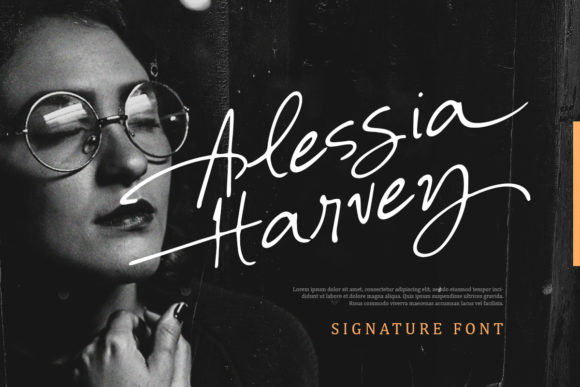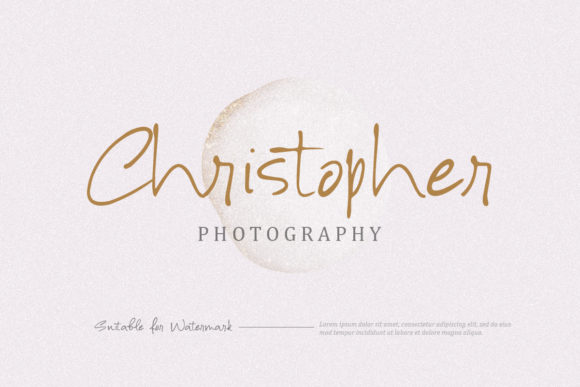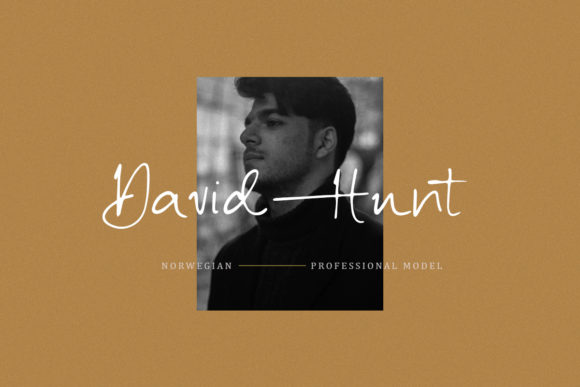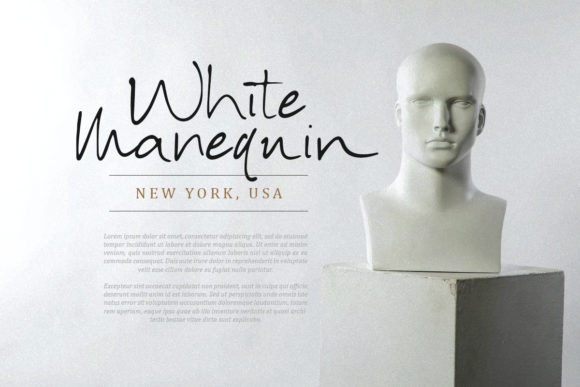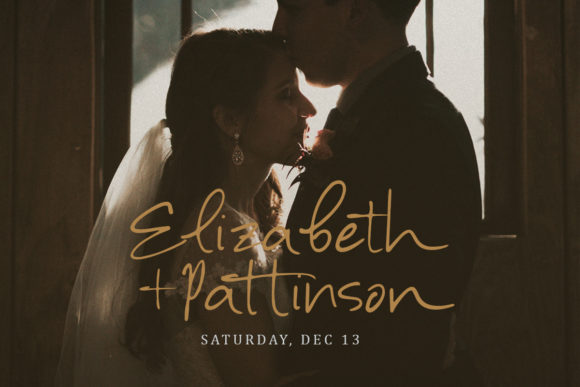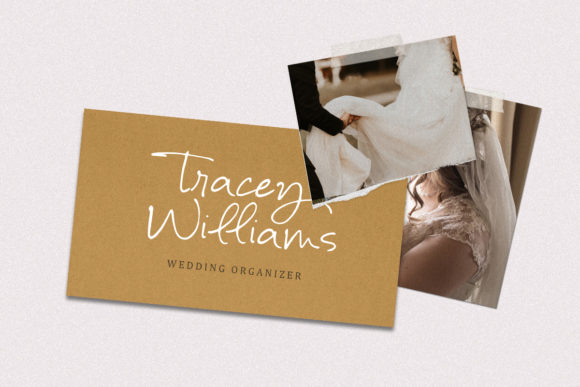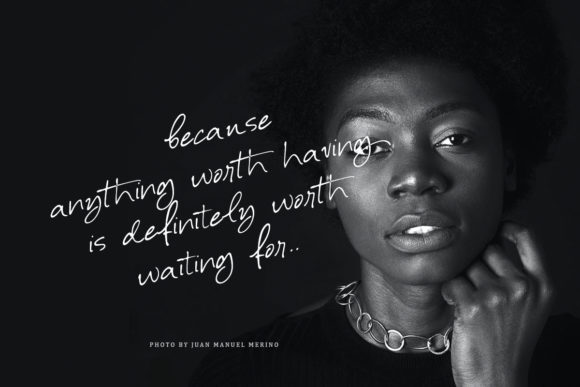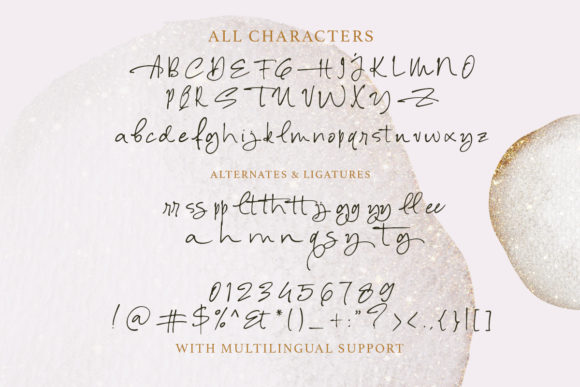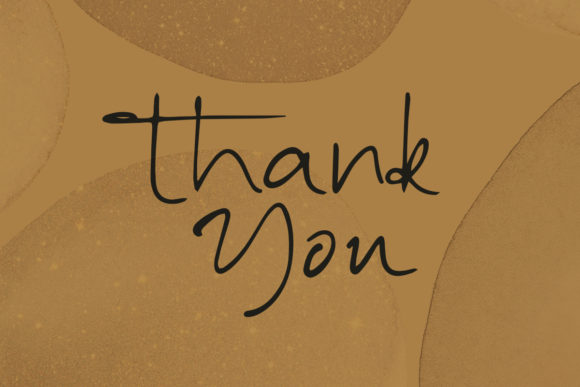
Alessia Harvey Font
Alessia Harvey is a delicate, elegant and flowing handwritten font. It has beautiful and well balanced characters and as a result, it matches a wide pool of designs.